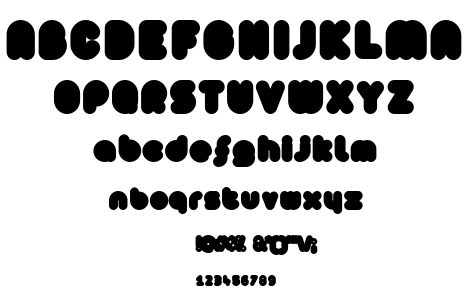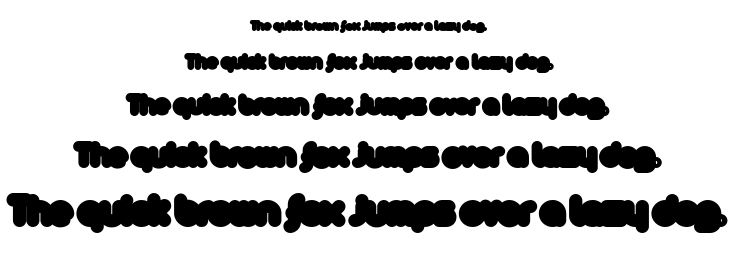
Arista is a soft round font, perfect for 2.0 logos and contemporary headlines.We have made a new release, the Arista 2.0 (that you can also find on Fontm.com) is the definitive release with extra characters and corrected kerning.For commercial licence please visit our site.